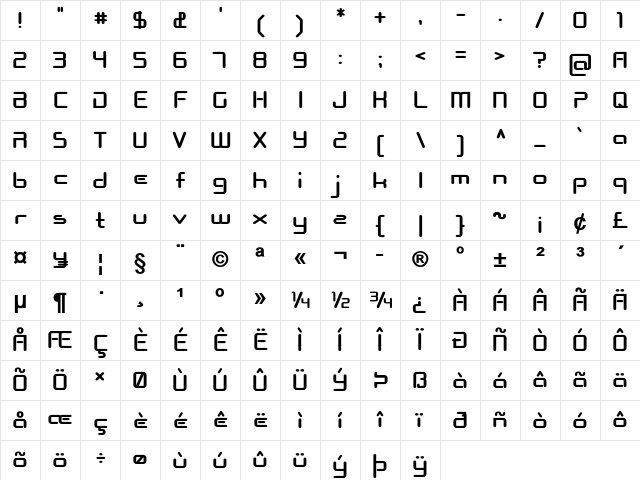
Zolar Bold Free Font
Zolar Bold
Zolar Family
Design Context for Zolar
Zolar is a composed and adaptable typeface that performs quietly and consistently across a wide range of design contexts. Its bold stroke weight gives it real presence on the page.